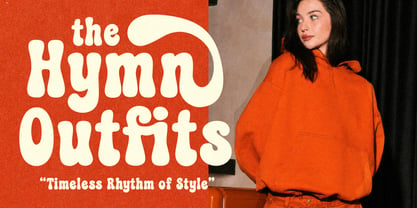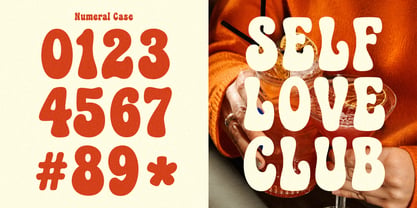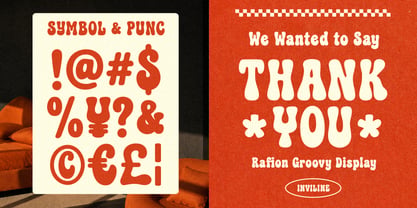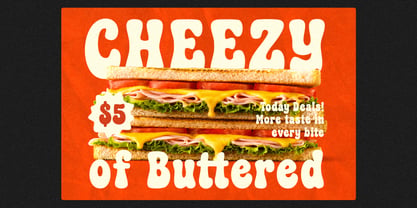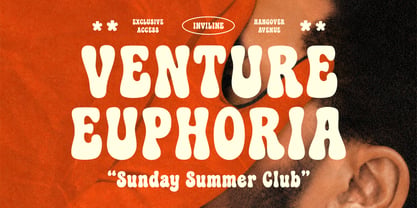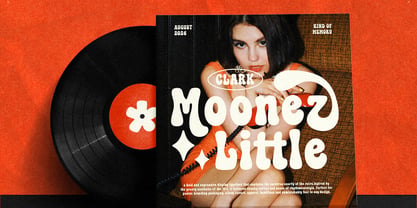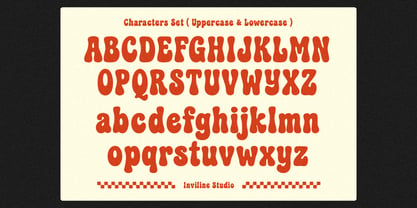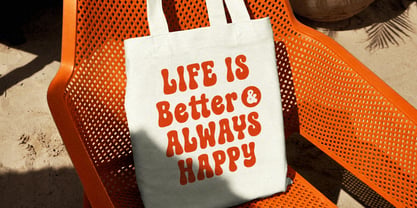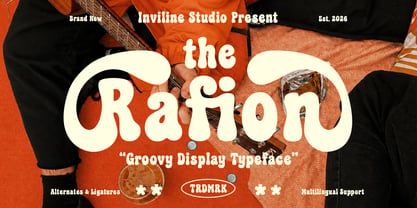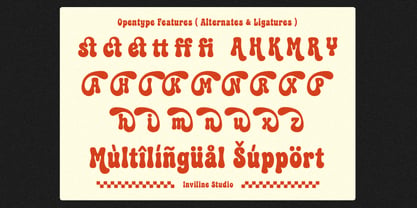
Rafion
La famille de polices Rafion a été conçue par Virgiawan Listanto et publiée par Inviline. Rafion contient 1 styles. En savoir plus sur cette famille
Rafion is a bold, groovy display font that exudes a playful, expressive, and nostalgic personality. Drawing inspiration from 70s typography, retro posters, vintage packaging, music graphics, fashion, and bold editorial design, this font infuses a fun retro character into every project. With chunky rounded letterforms, organic shapes, stylistic alternates, ligatures, numerals, symbols, and multilingual support, Rafion is ideal for retro branding, poster designs, album covers, apparel graphics, packaging, café branding, editorial layouts, social media graphics, stickers, merchandise, headlines, and creative campaigns.